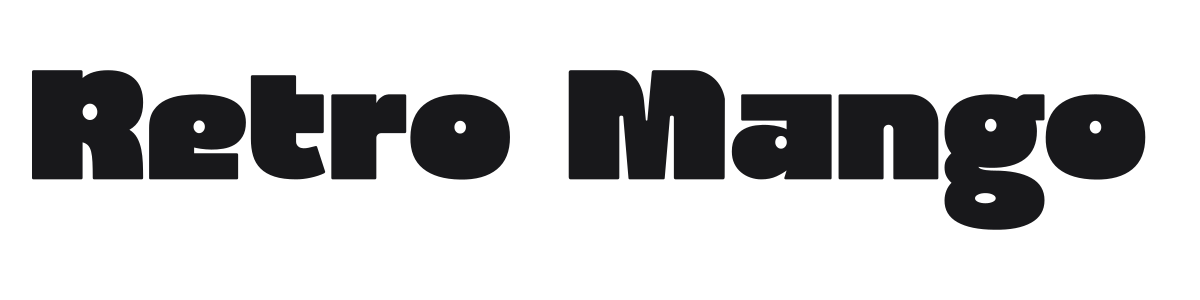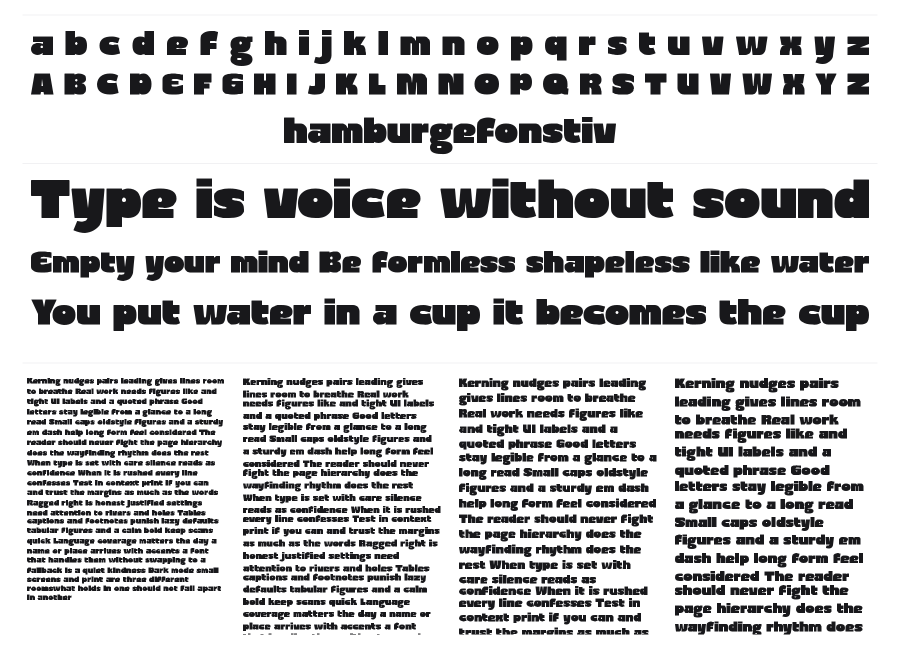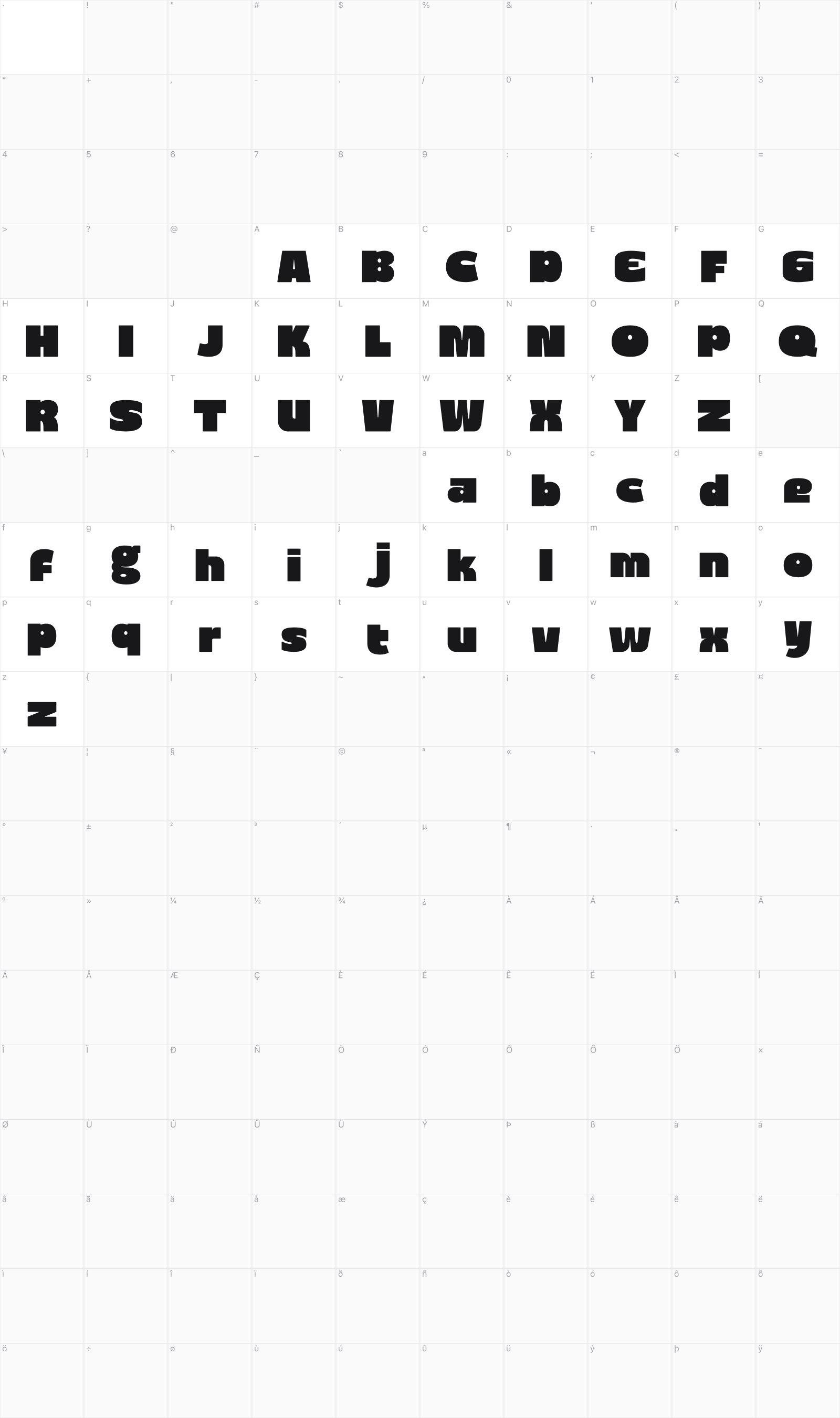
Retro Mango
Retro Mango is a ultra-heavy display sans with chunky, rounded characters and an unmistakably 1970s funky attitude. The near-maximum stroke weight compresses the counters into tight slivers, creating a bold, dense texture that commands attention at large sizes. It suits branding, posters, and packaging where personality and impact matter more than subtlety.